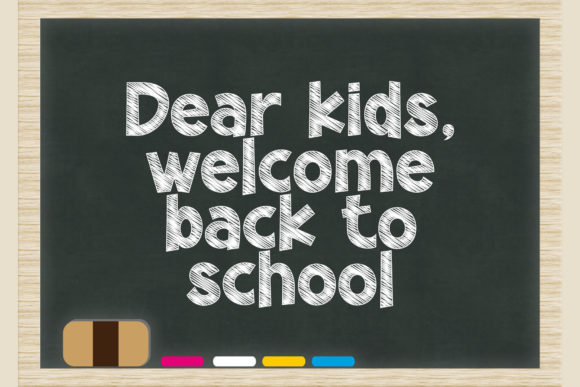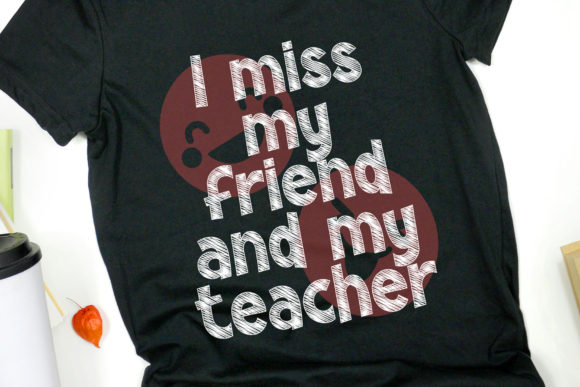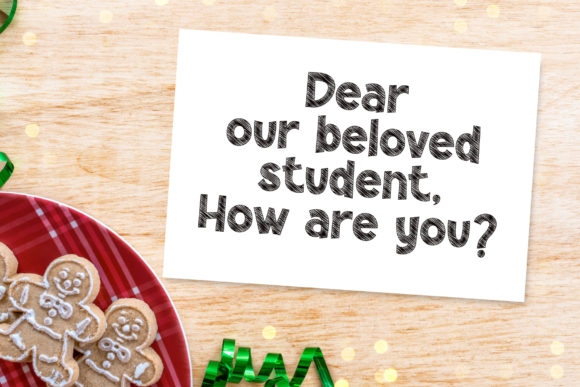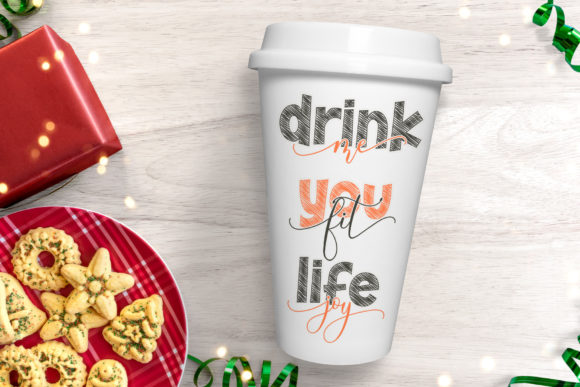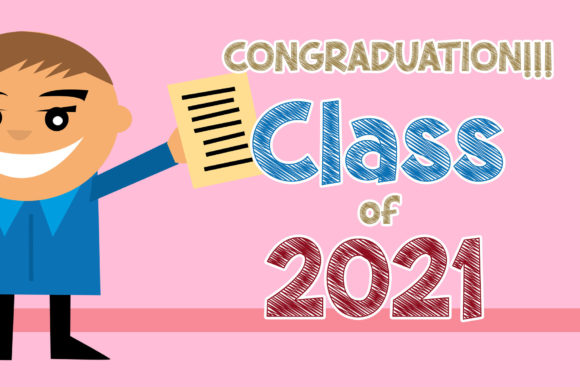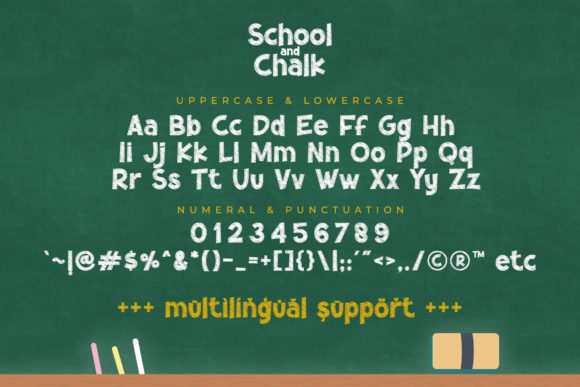
Introduction to School and Chalk Font
School and Chalk is a cute and simple lettered display font that can be used for all chalkboard quotes or teaching material.
Its authentic look will add a personal and realistic feel to your designs .
School and Chalk Font offers exceptional quality and versatility, making it a valuable addition to your design toolkit. Whether you’re creating for personal projects or commercial use, School and Chalk Font delivers professional results.